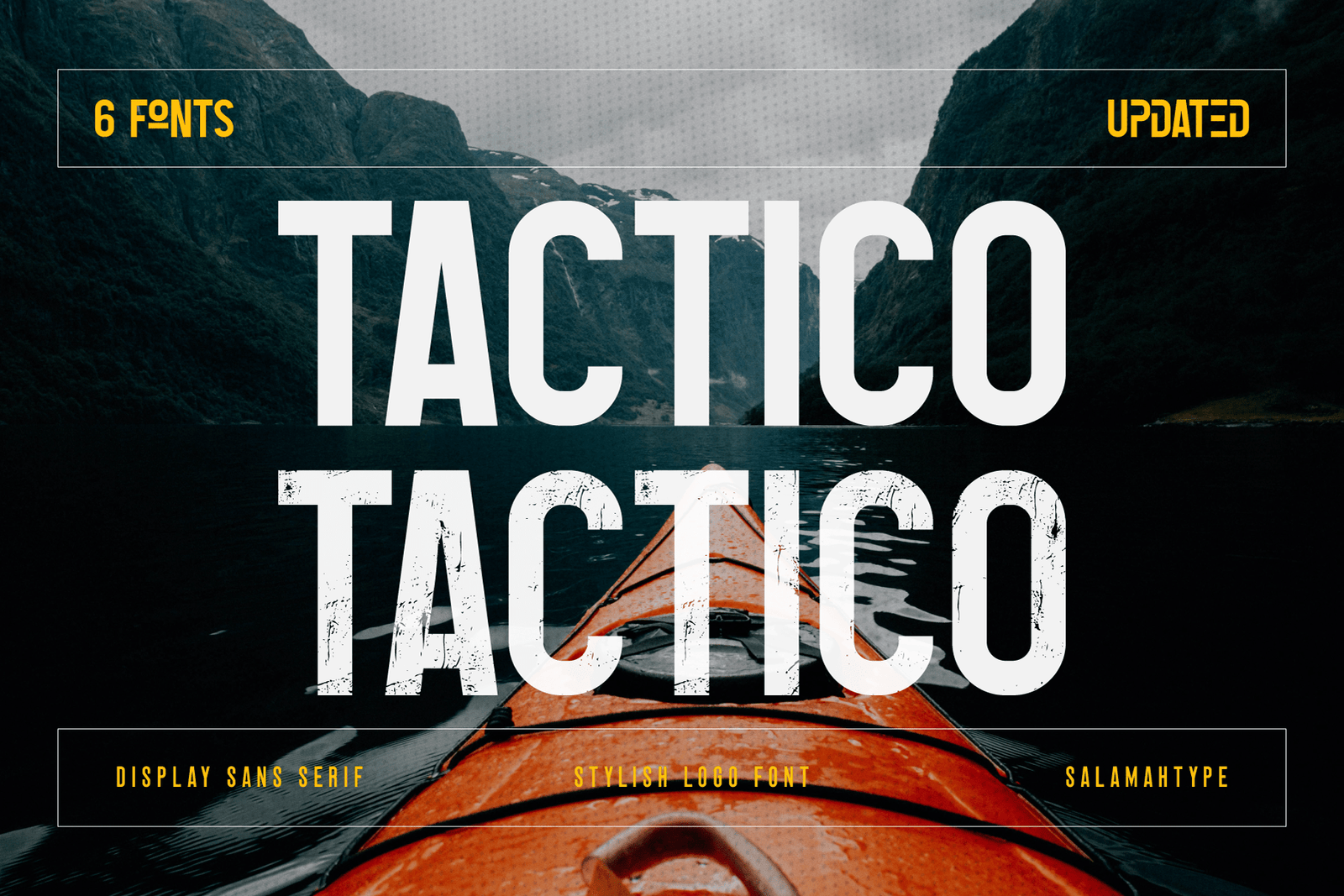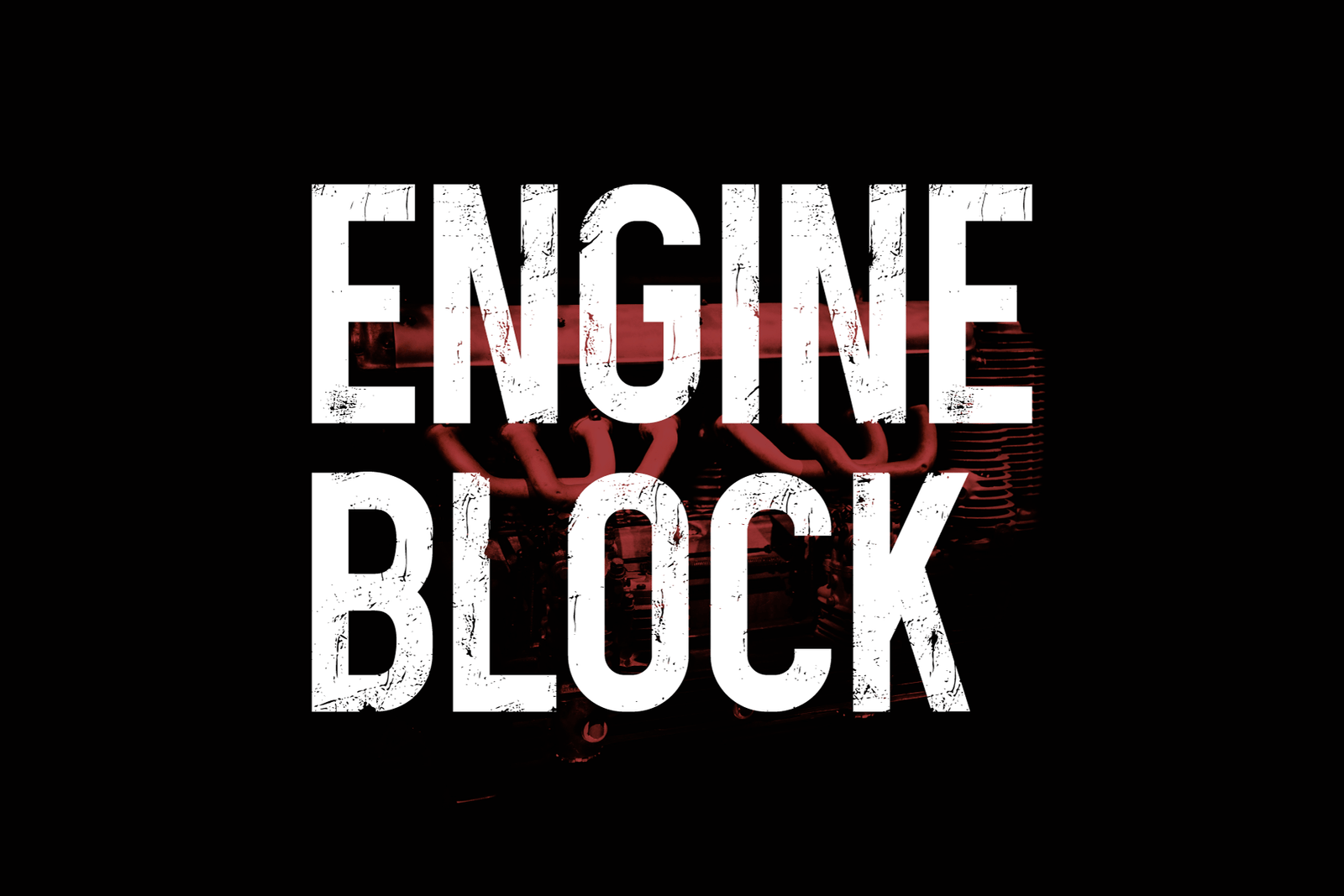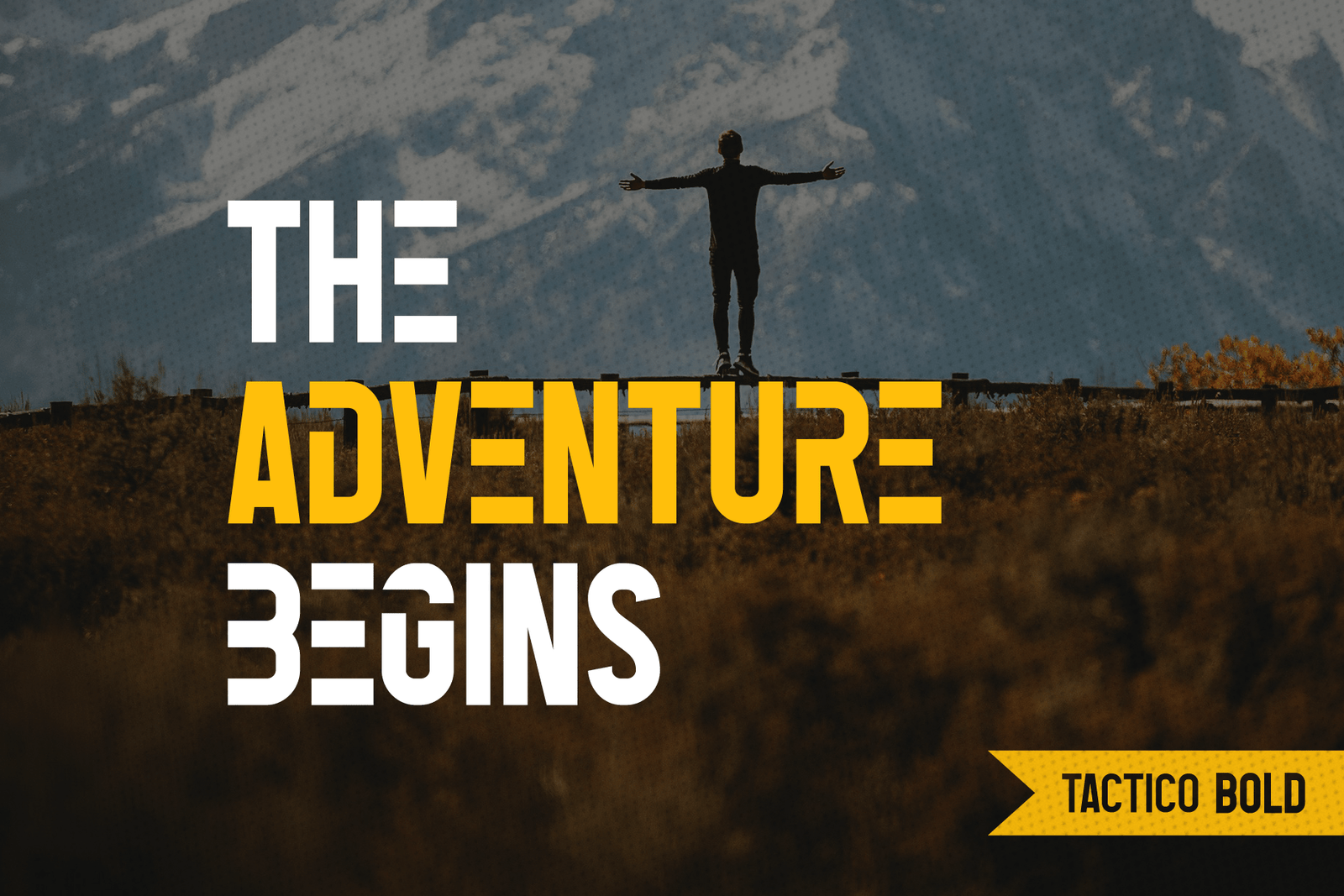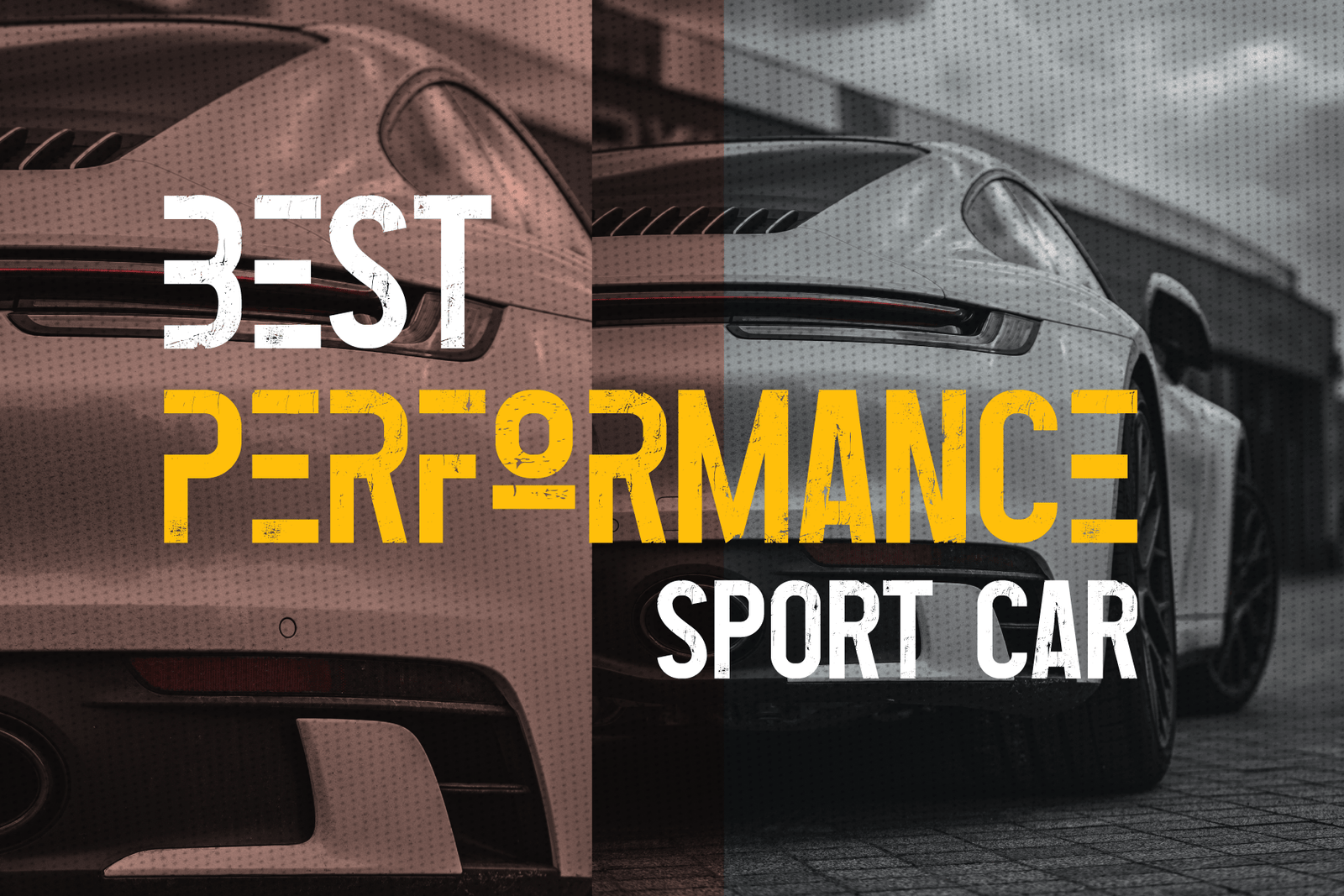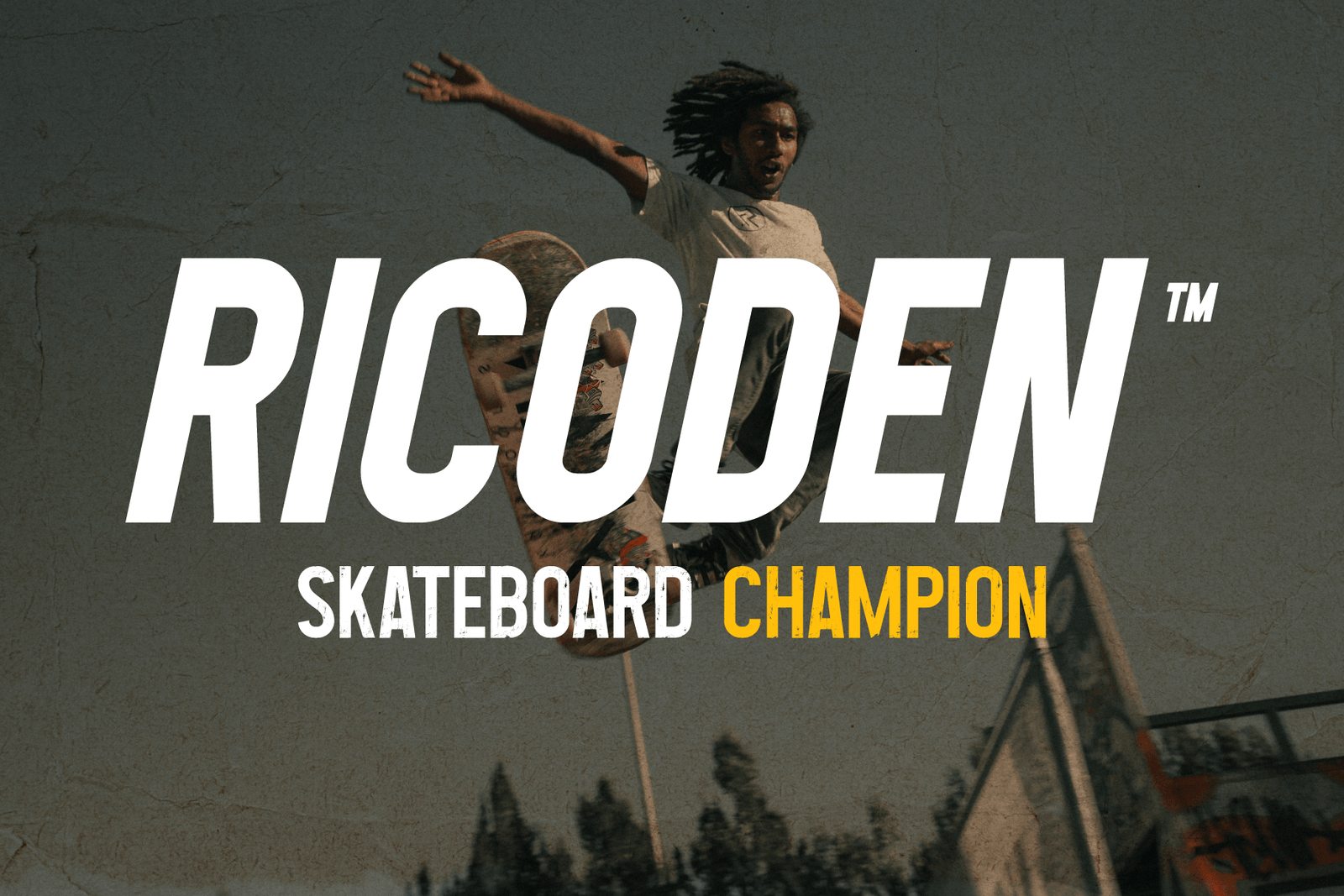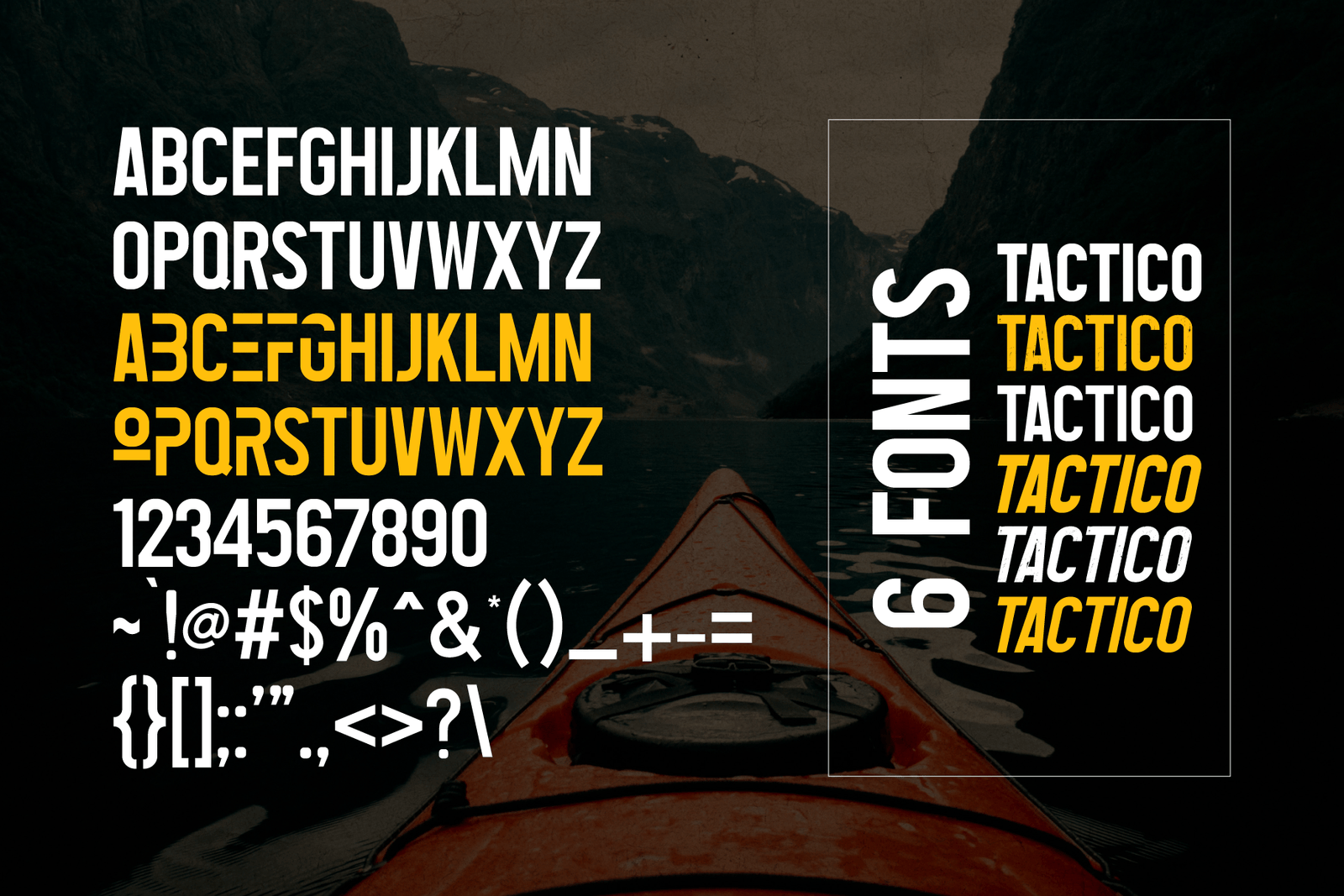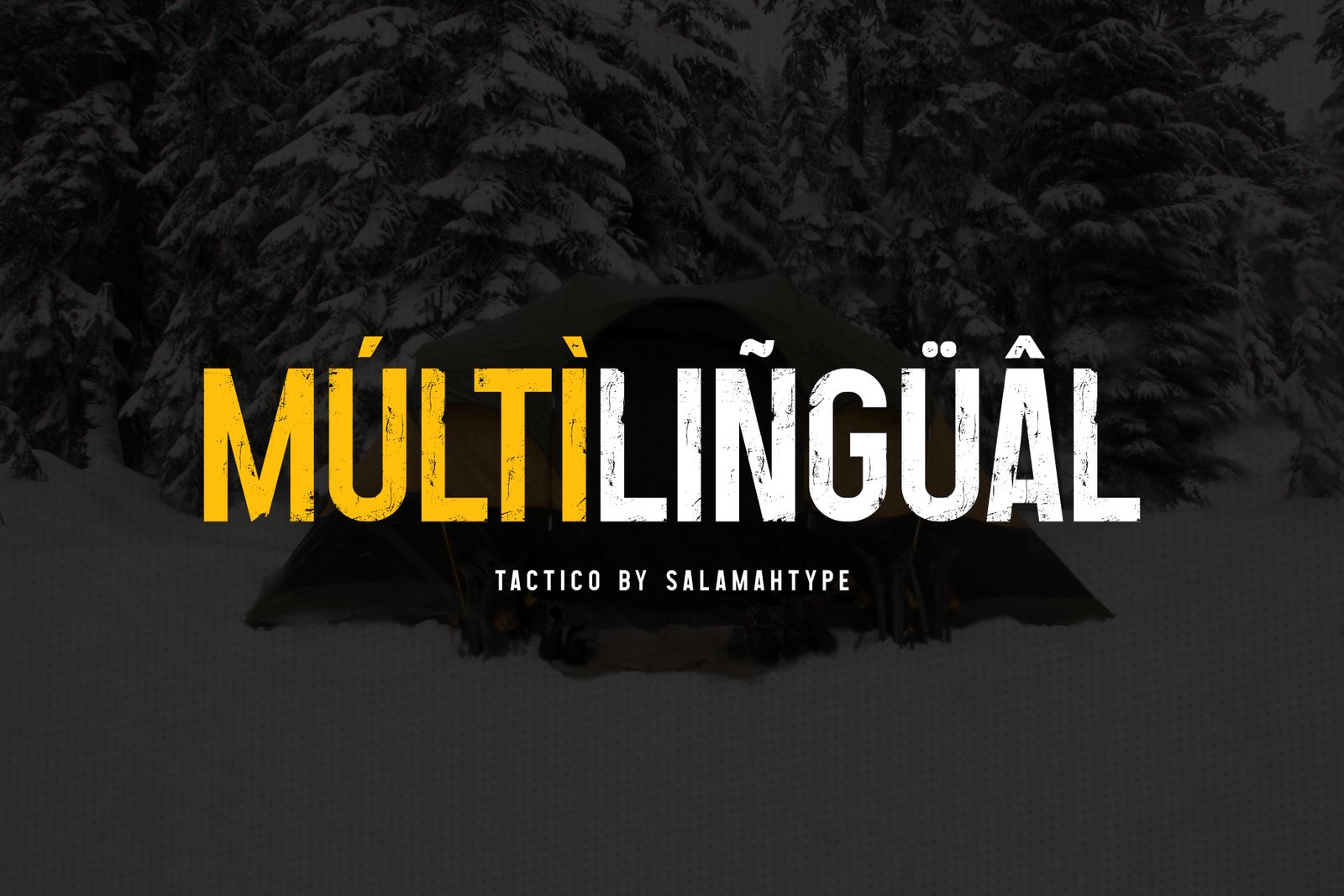
Tactico – Bold All Caps Sans Serif Font Family (Regular, Bold, Grunge)
Tactico is a bold all-caps sans serif font family designed for versatility and impact. It comes with 6 unique styles — including Regular, Bold, and Grunge/Distressed — giving you a complete toolkit for standout designs.
Perfect for logos, branding projects, posters, product packaging, magazine titles, advertisements, and social media graphics, Tactico blends modern professionalism with rugged character. Its clean letterforms ensure readability, while the textured styles add an edgy, handcrafted feel that makes your work stand out.
Whether you need a bold logo font, grunge display font, or a modern sans serif typeface for digital and print, Tactico adapts perfectly to every creative need.
Features:
Uppercase / All-Caps Font Family (6 Styles)
Includes Regular, Bold, and Grunge Variants
Numbers, Symbols & Punctuation
Multilingual Support
- Addition of several font characters and kerning improvements
- Uppercase displays regular characters
- Lowercase displays styled characters
- Contains 234 glyphs